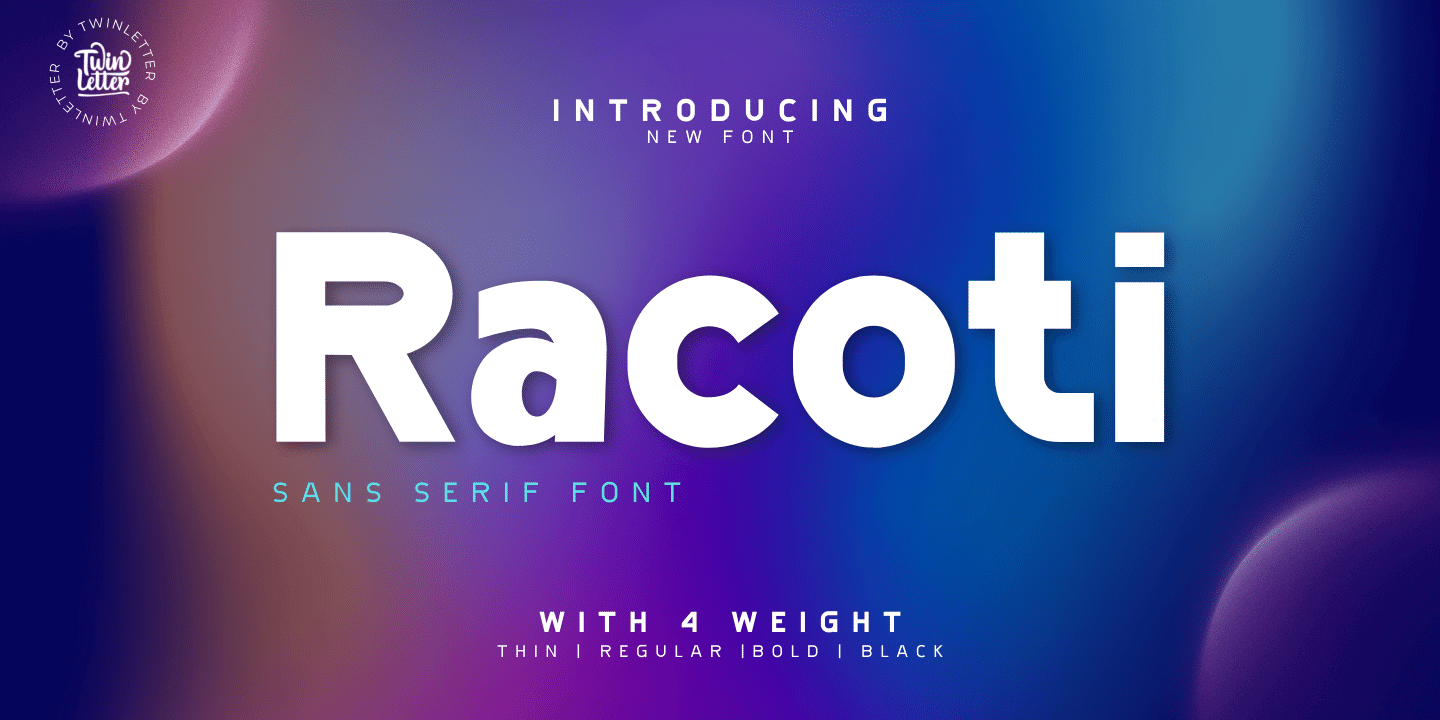
Racoti Font excels in contemporary design applications including modern tech startups, innovative product launches, cutting-edge app interfaces, digital marketing campaigns, progressive brand identities, creative agency portfolios, futuristic web designs, contemporary art exhibitions, avant-garde fashion branding, and next-generation technology presentations. This forward-thinking typeface seamlessly combines experimental aesthetics with functional clarity, making it an essential tool for designers working on projects that demand innovation, creativity, and contemporary visual sophistication.
What makes Racoti Font particularly exciting is its unique blend of geometric precision and artistic flair that creates a distinctive contemporary character unlike any traditional typeface. The font features bold, angular letterforms with unexpected curves and innovative spacing that challenge conventional typography while maintaining excellent readability. Its experimental design incorporates cutting-edge typographic trends with timeless design principles, creating a perfect balance between artistic expression and commercial viability. The typeface's ability to convey both creativity and professionalism makes it perfect for brands seeking to establish themselves as industry innovators. Each character has been meticulously crafted to push typographic boundaries while ensuring optimal performance across digital platforms and modern design applications.
The Racoti Font family encompasses diverse stylistic variations including Light, Regular, Bold, and Black weights, each maintaining the core innovative aesthetic while offering distinct personality expressions. The family also features condensed versions for space-efficient layouts and extended variants for maximum visual impact in headline applications. Additional experimental cuts may include outline styles, gradient-ready versions, and display variants that amplify the font's contemporary character for large-scale environmental graphics and digital installations.
Creative professionals consistently choose Racoti Font Free Download for projects requiring cutting-edge visual identity and contemporary design leadership. This remarkable typeface has gained recognition in the design community for its ability to communicate innovation and forward-thinking while maintaining the functionality required for comprehensive branding systems. The font's advanced OpenType features include stylistic alternates, contextual substitutions, and experimental ligatures that provide unlimited creative possibilities for contemporary typographic compositions.
Whether you're developing tech startup branding, creating innovative digital interfaces, designing contemporary marketing materials, or crafting next-generation brand identities, Racoti Font delivers exceptional results. Its progressive aesthetic makes it particularly appealing to technology companies, creative agencies, design studios, innovative startups, and forward-thinking brands seeking to communicate creativity, innovation, and contemporary relevance through their visual communications.
The font's technical specifications ensure flawless performance across all modern design platforms and emerging technologies. It includes comprehensive Unicode support for international creative markets, making it suitable for global innovation brands and multilingual contemporary projects. The careful optimization guarantees sharp rendering on high-resolution displays and next-generation output devices, maintaining the font's cutting-edge character whether used in virtual reality interfaces or traditional print applications.
Professional designers appreciate Racoti Font's ability to convey innovation and artistic vision while remaining highly practical for commercial design applications. Its distinctive presence creates immediate brand differentiation while maintaining the versatility required for comprehensive contemporary branding systems. The font's experimental nature helps organizations position themselves as creative leaders while connecting with audiences who value innovation, artistic expression, and forward-thinking design solutions.